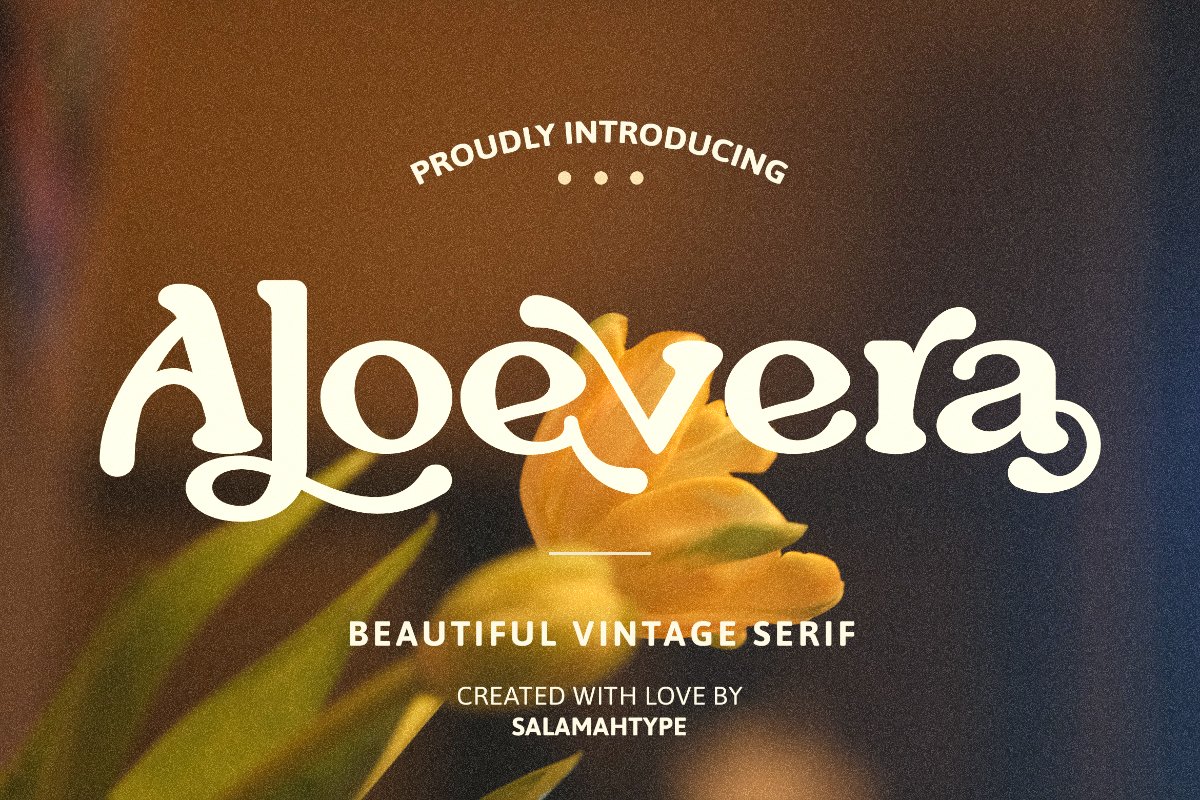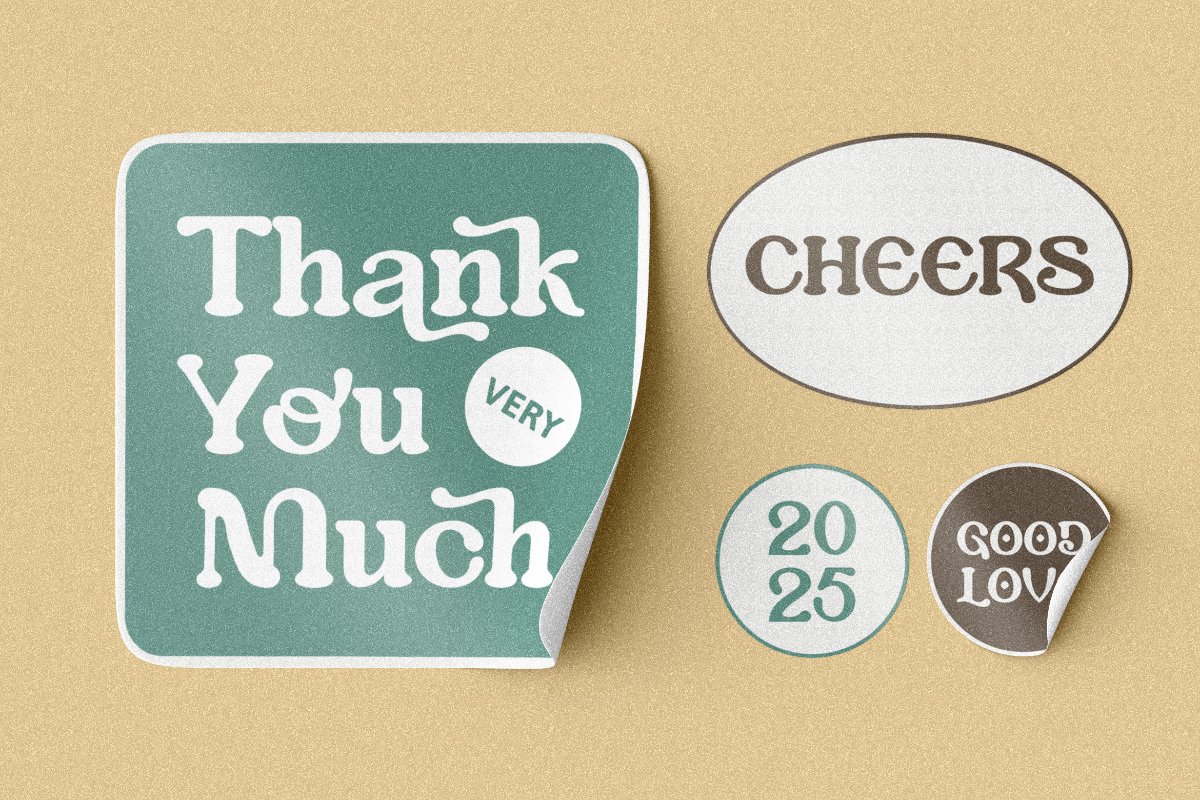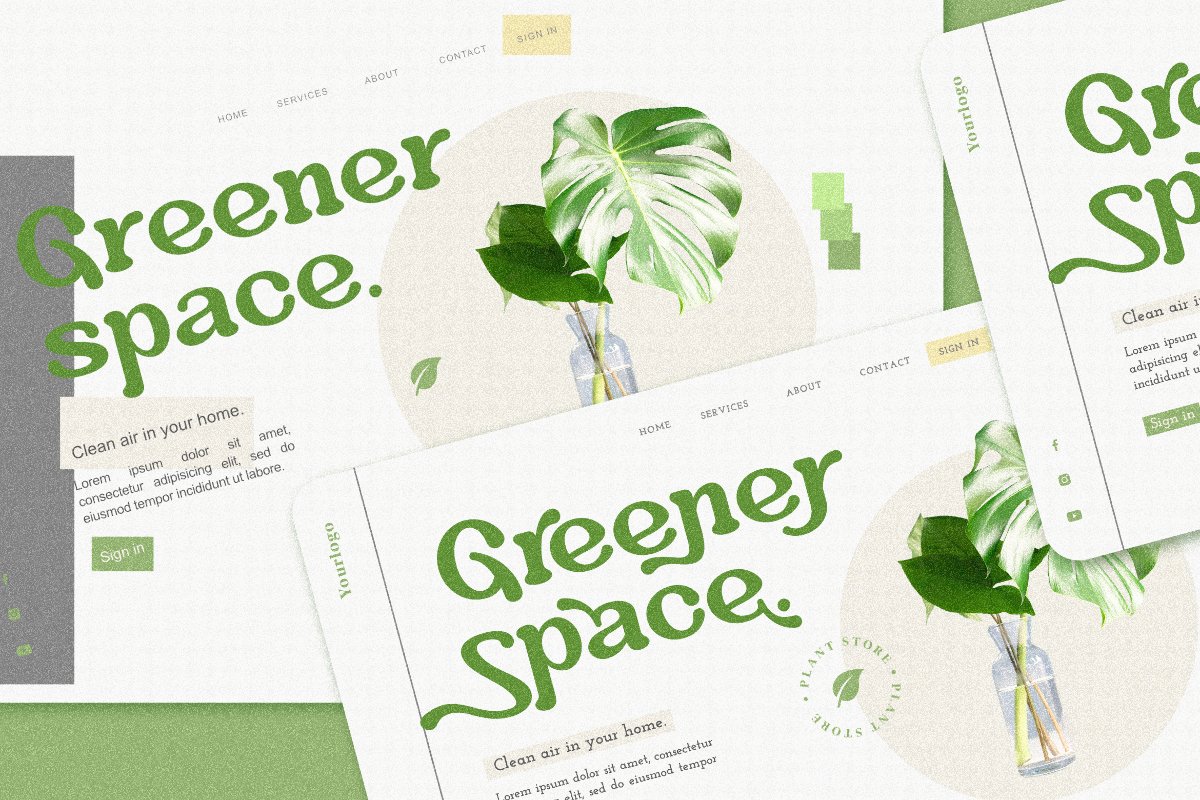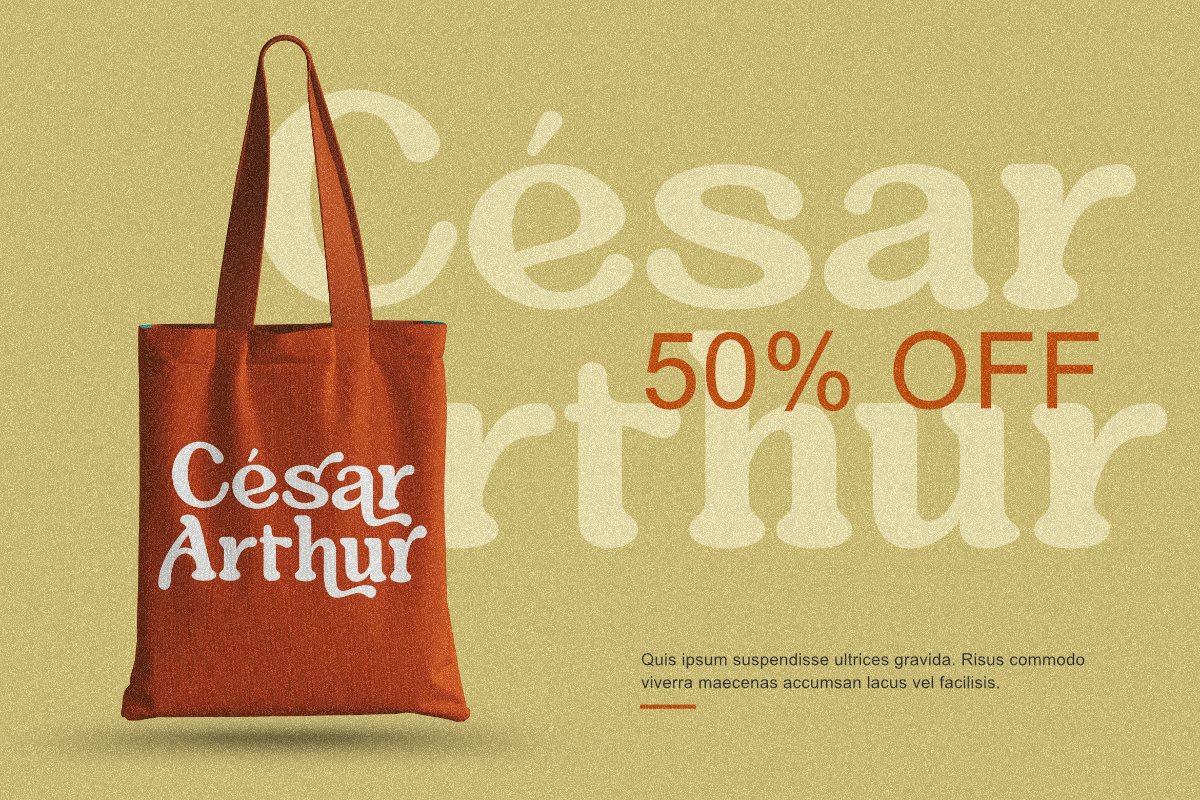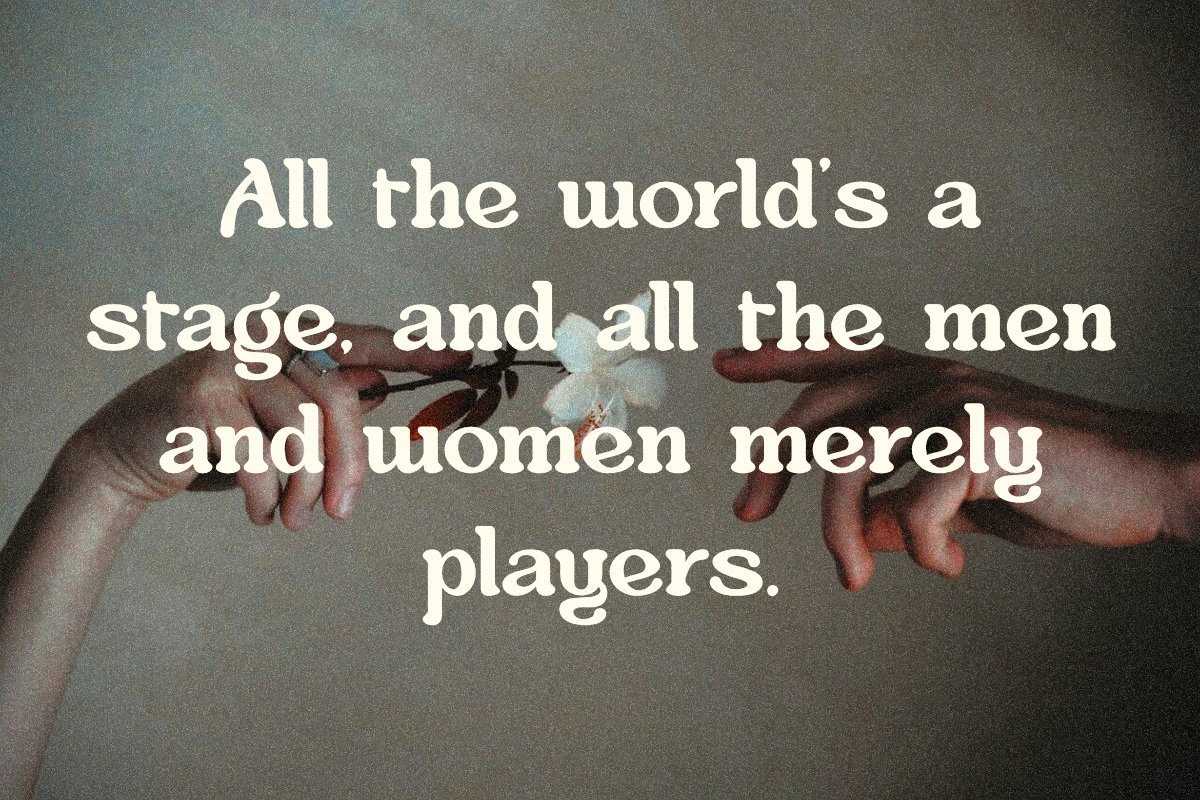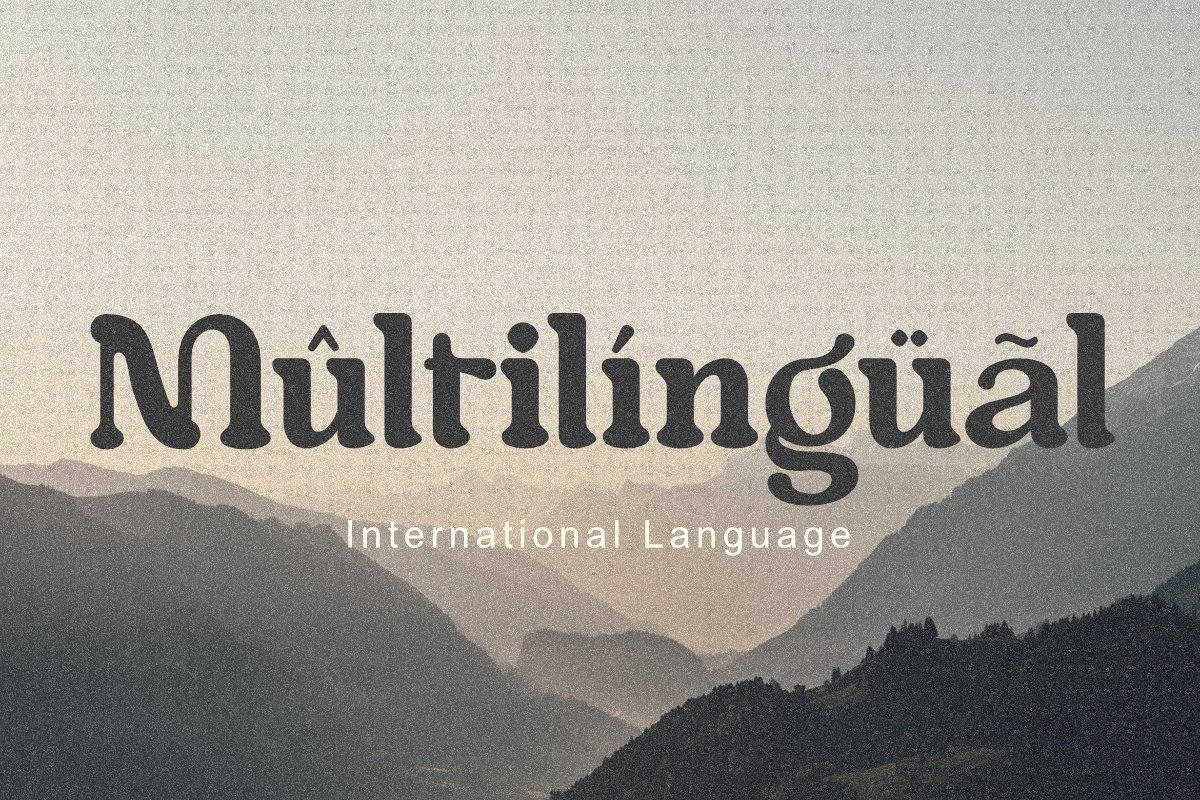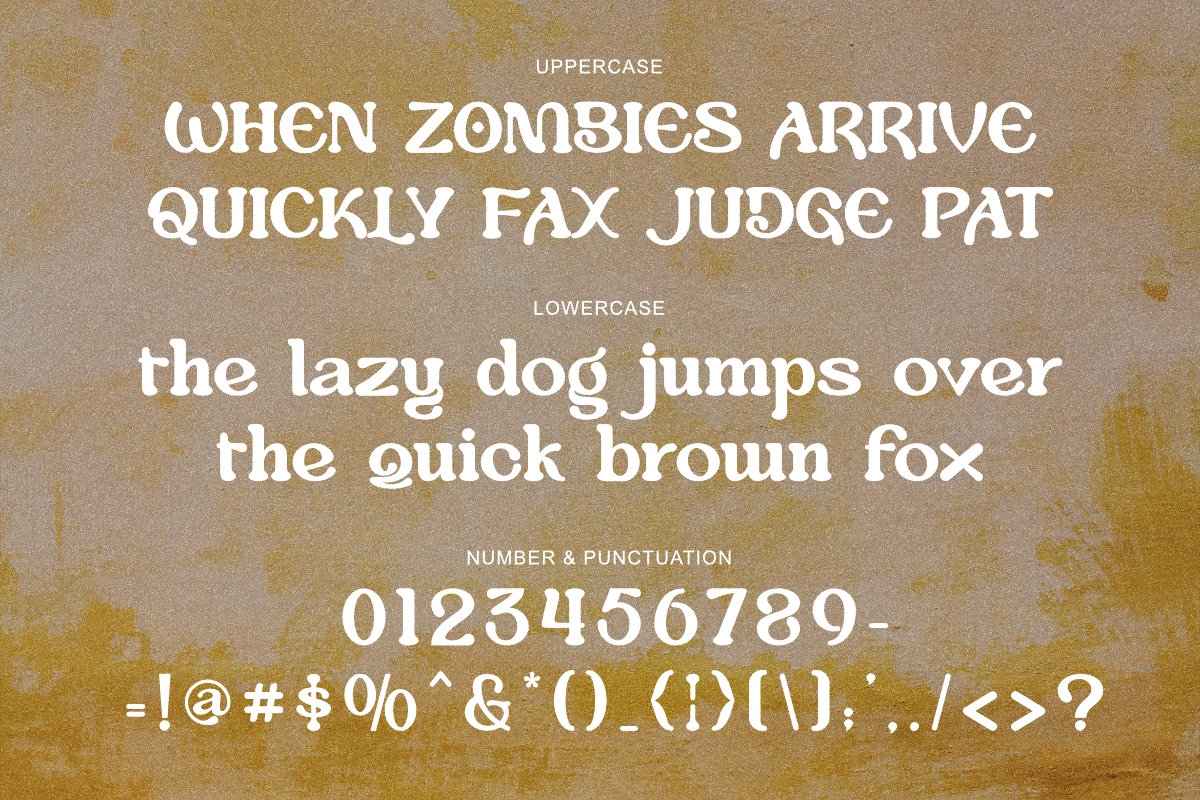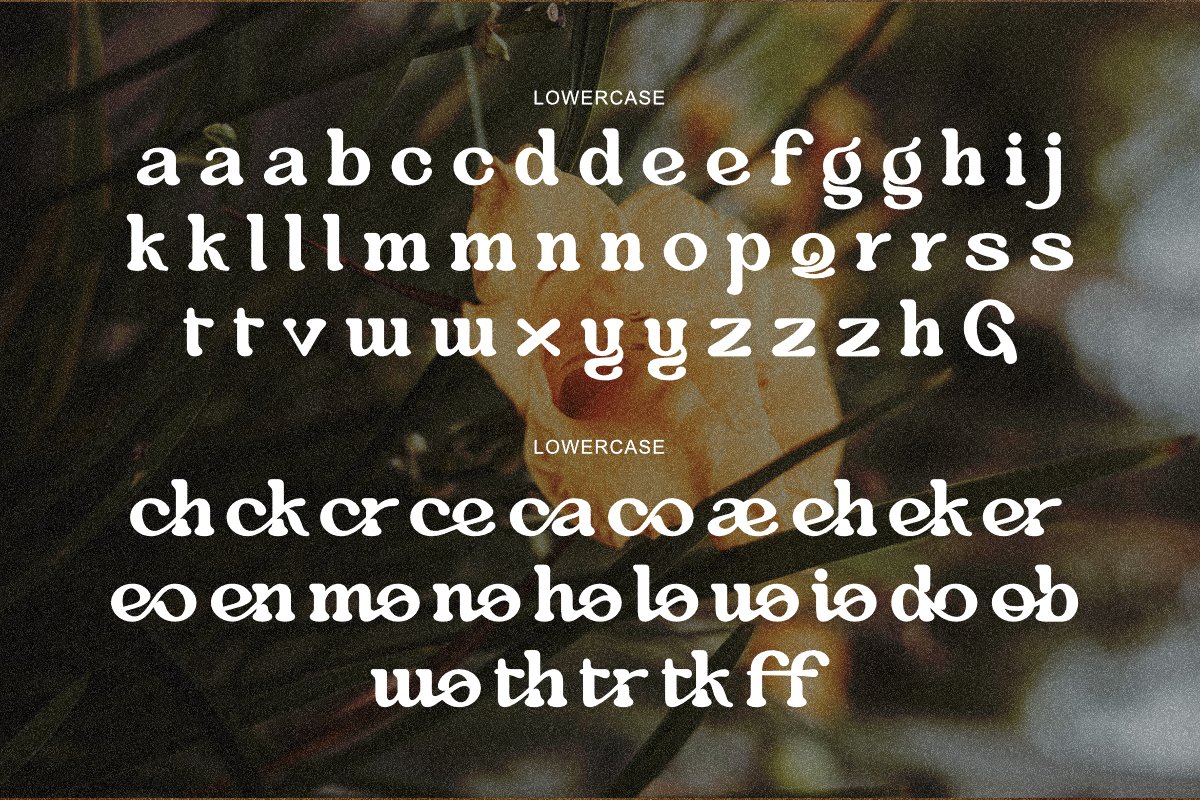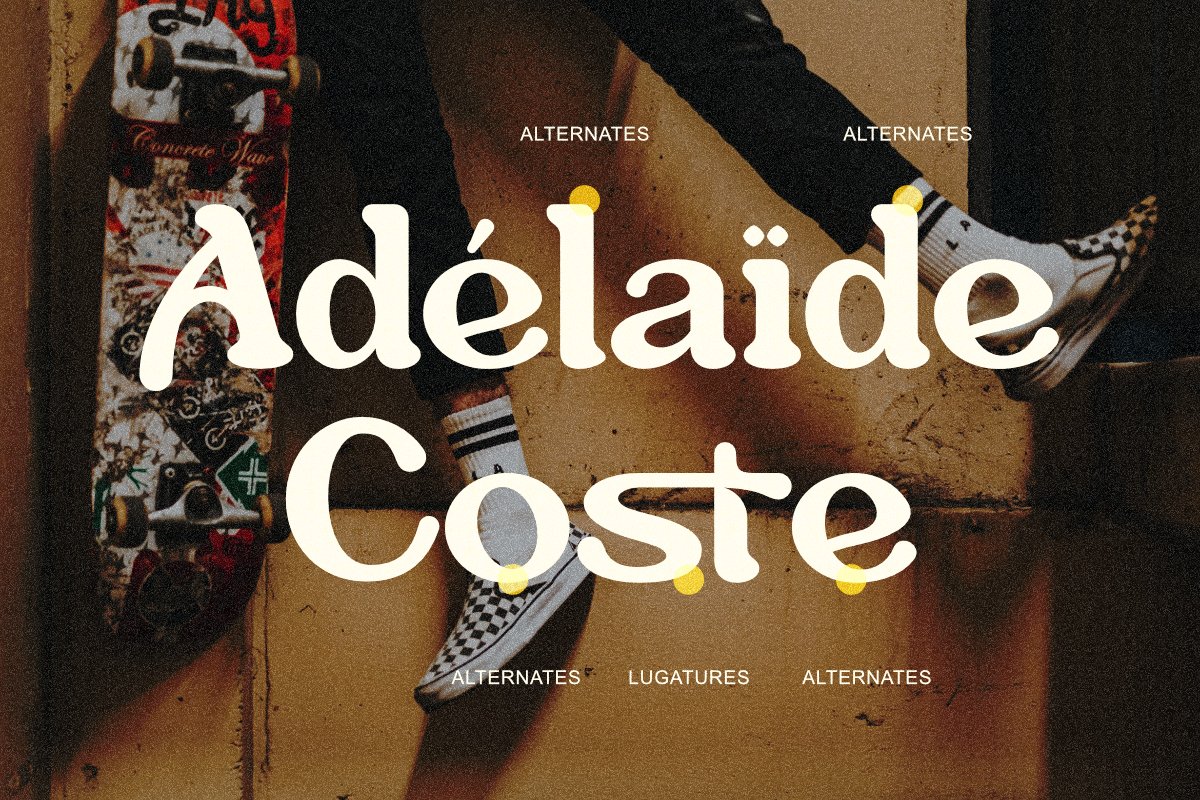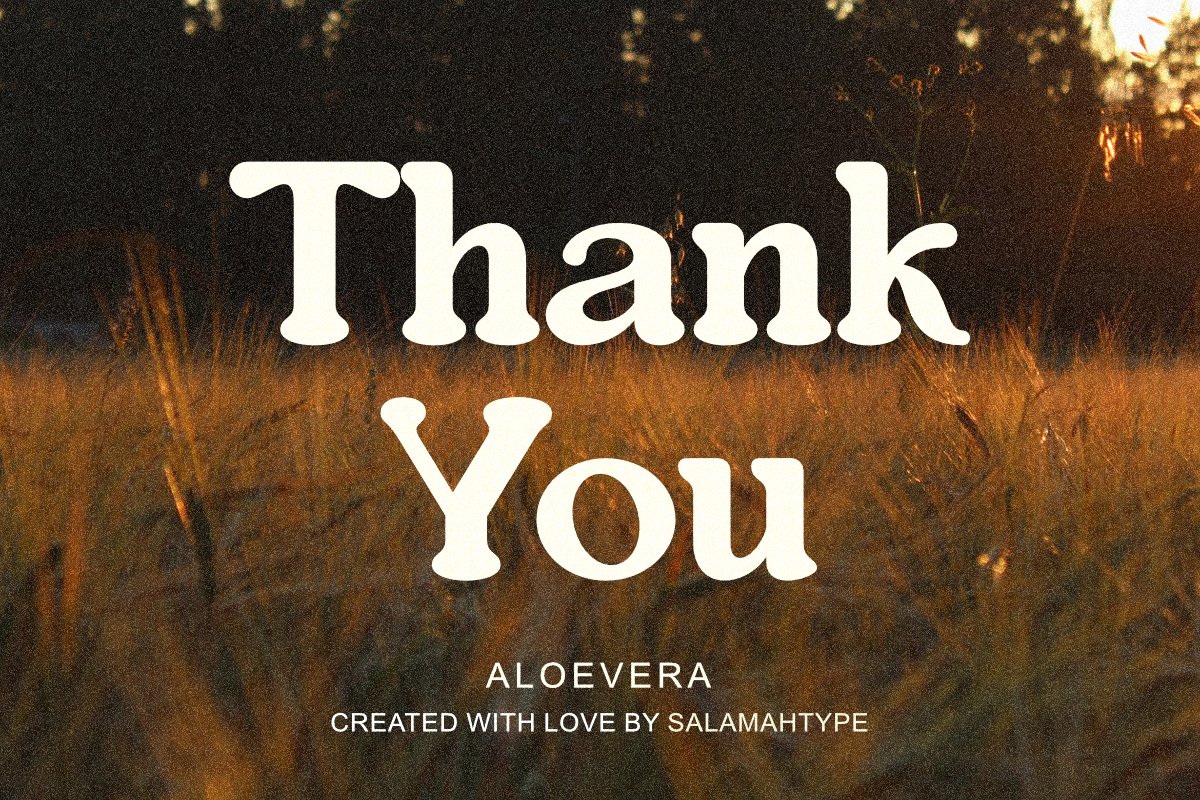
Aloevera
Aloevera is an elegant, retro and modern serif font with ligatures and alternates. This font is perfect for your branding projects, logos, wedding invitations, merchandise, and more.
• Uppercase and lowercase
• Symbol and punctuation
• Ligature
• Alternate
• Multilingual support
Aloevera Serif Font